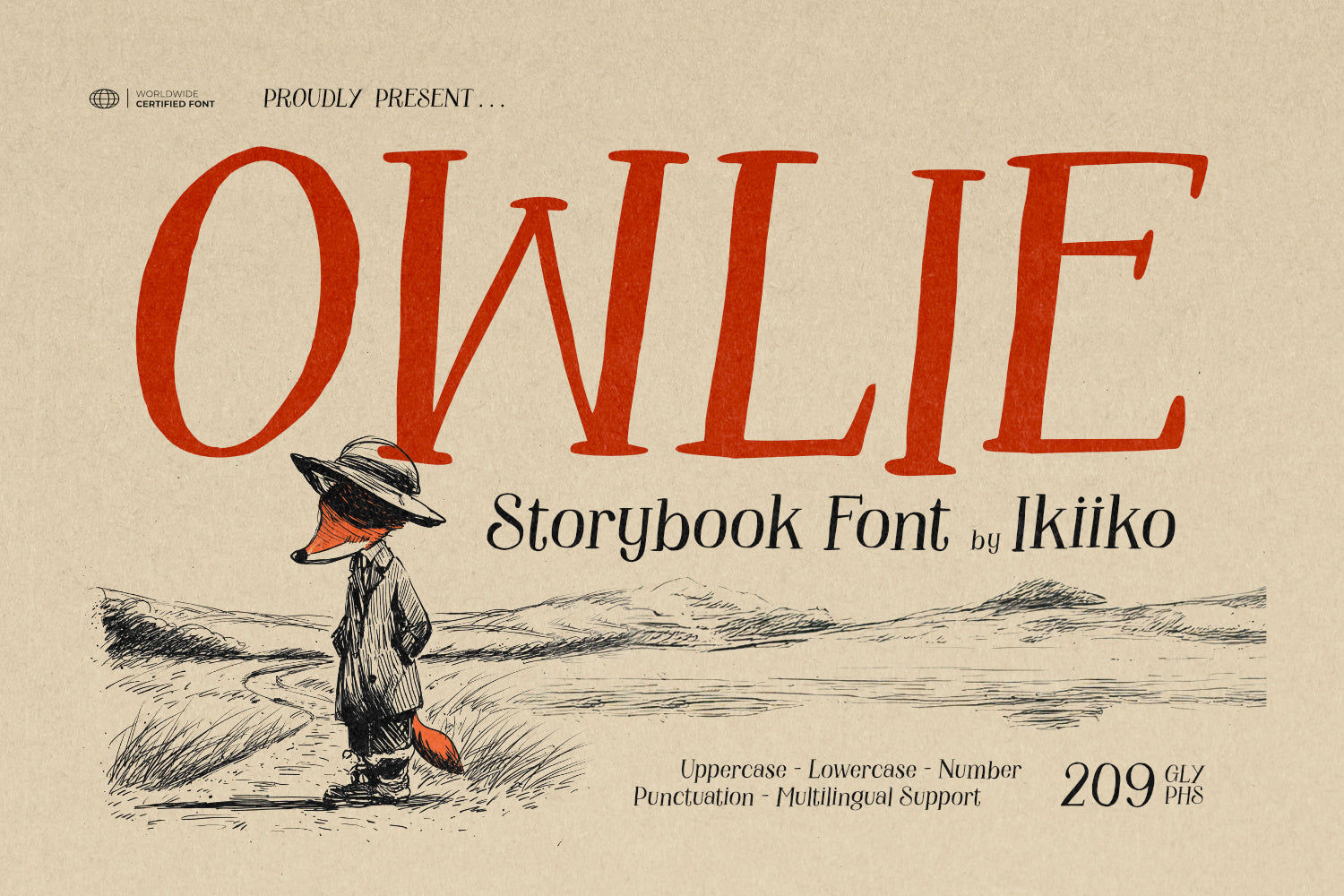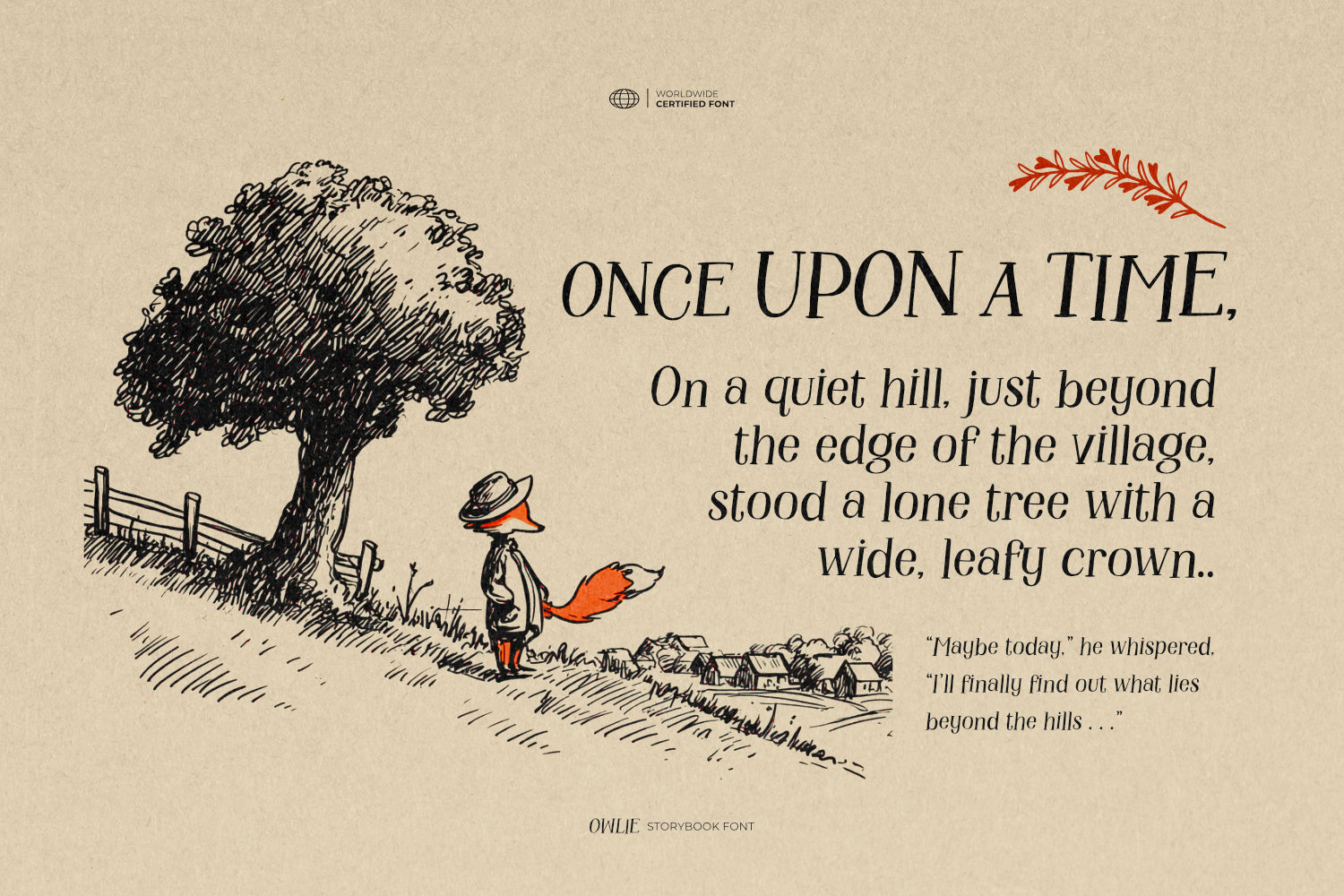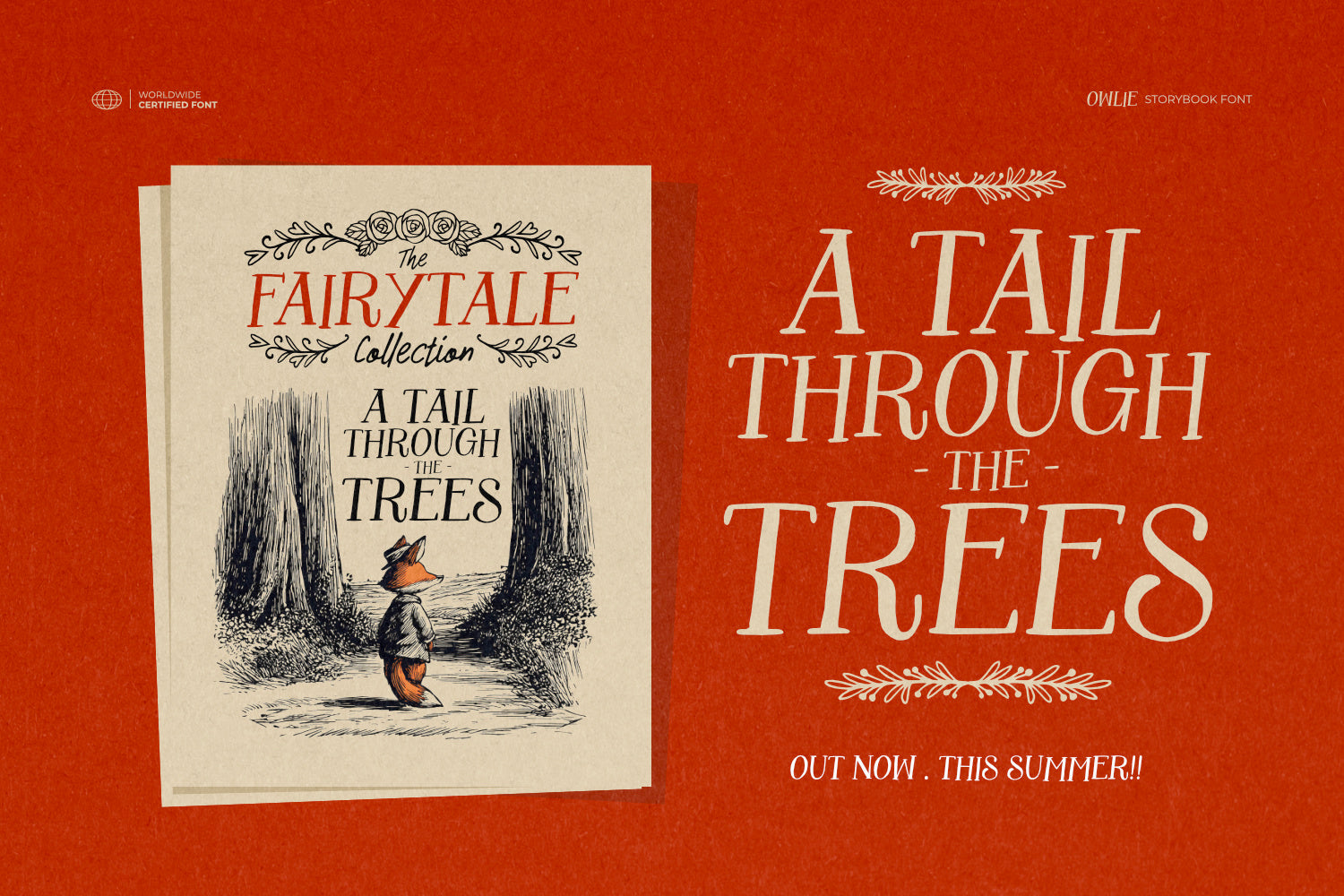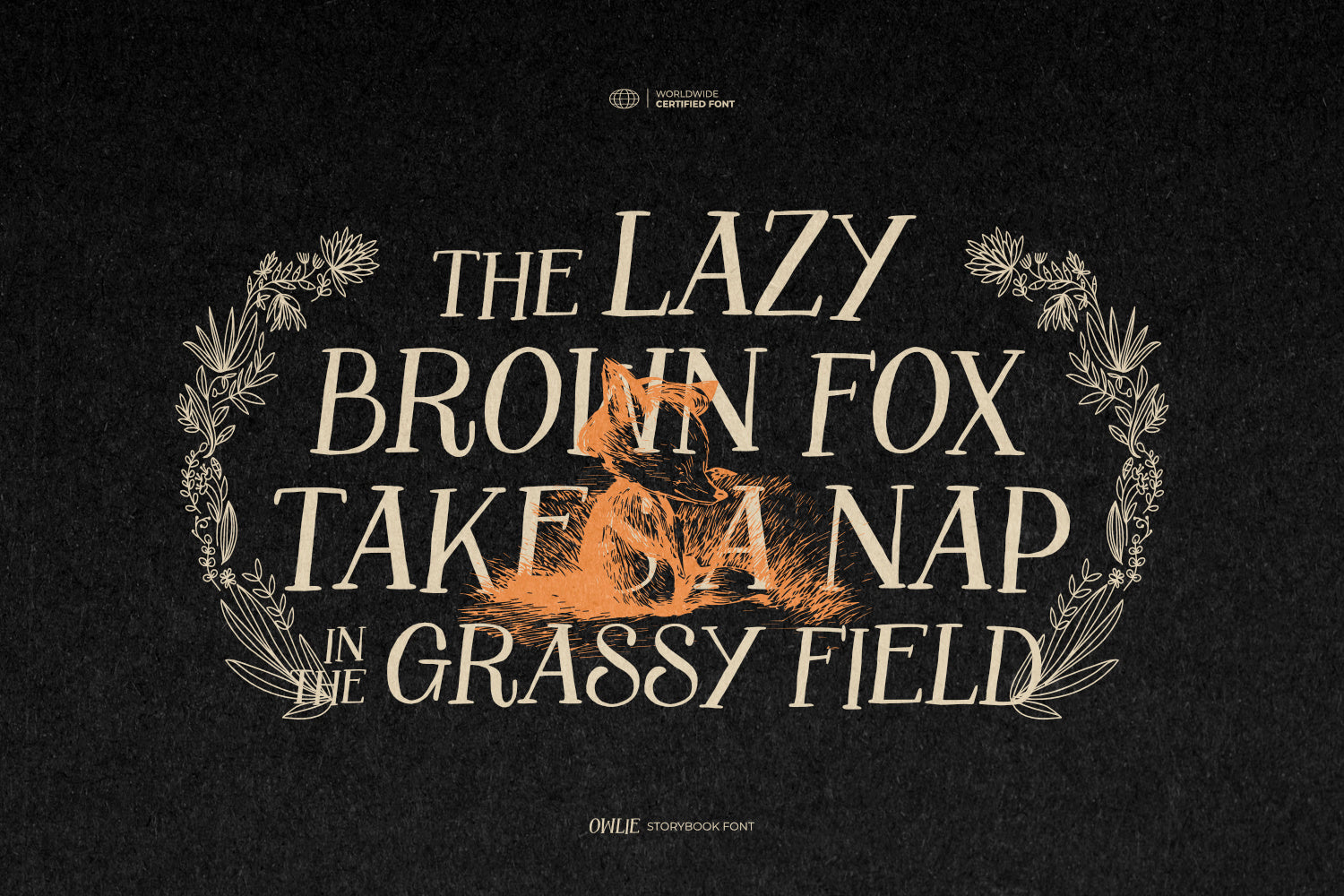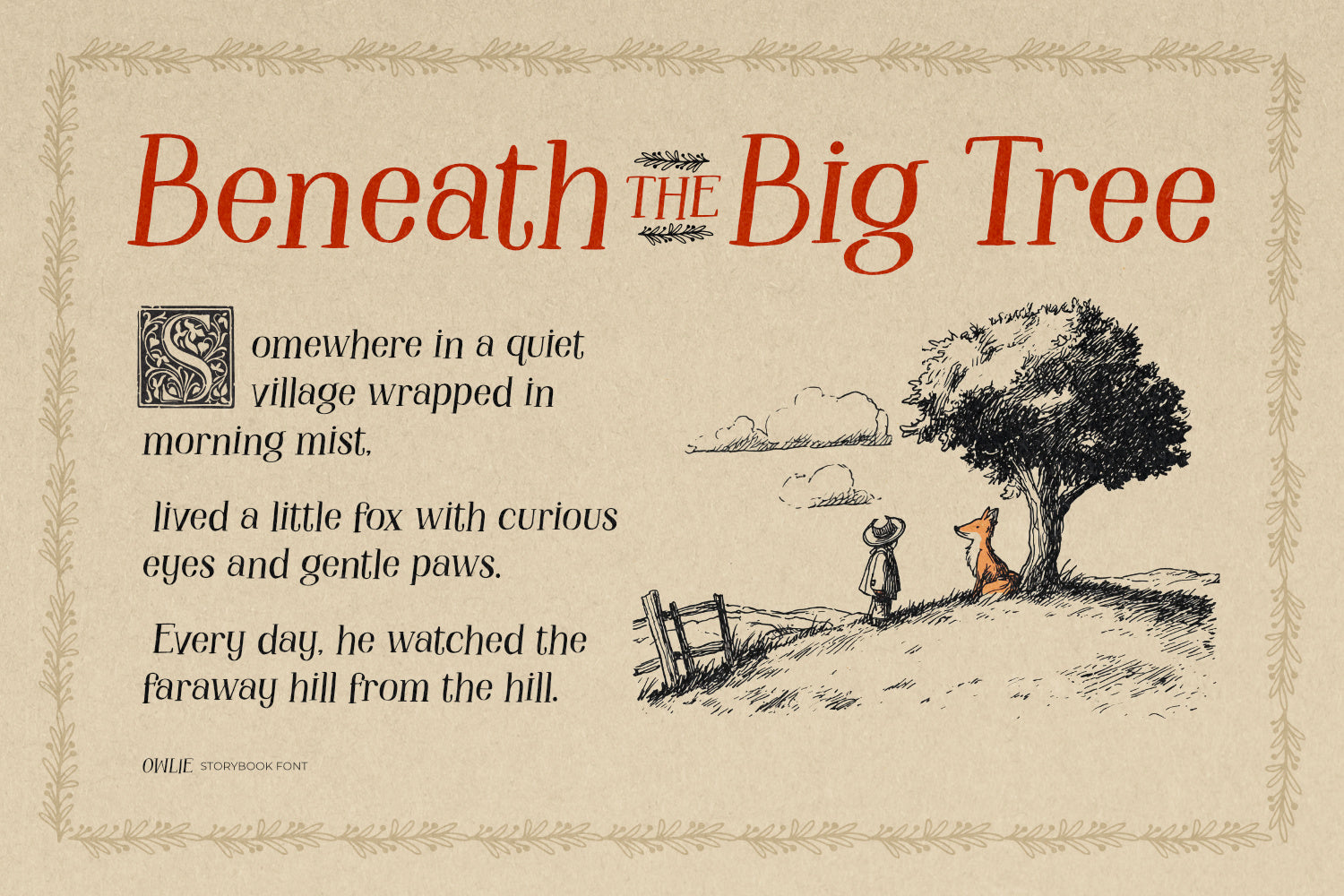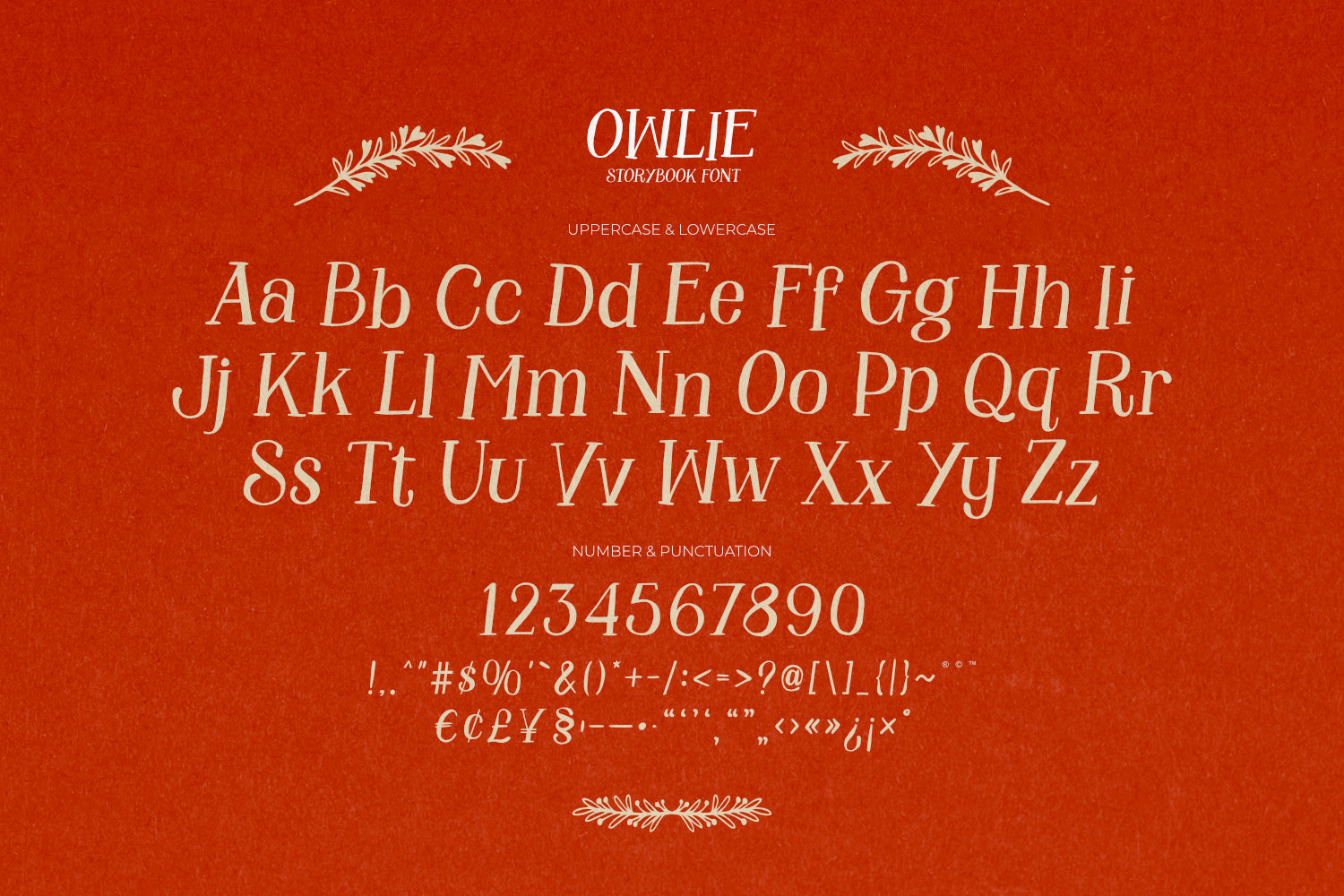
Proudly Present Owlie - Storybook Font, created by ikiiko
Owlie is a storybook font filled with fairy dust, dreamy curves, and handmade charm. Inspired by childhood tales and the magic of imagination, this typeface brings a warm, friendly energy to any design. Its organic handwriting style feels personal and playful—perfect for those looking to tell a story with soul.
From fairytale book covers to whimsical branding, Owlie adds a touch of wonder wherever it appears. It’s more than just a font—it’s a gateway to enchanted forests, talking animals, and dreams that dance across the page.